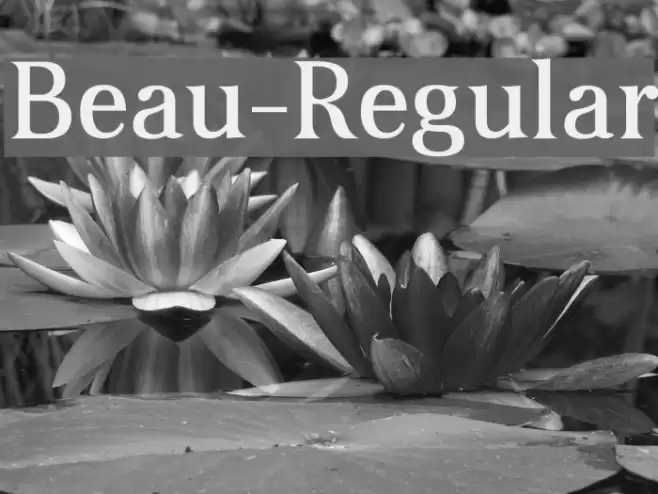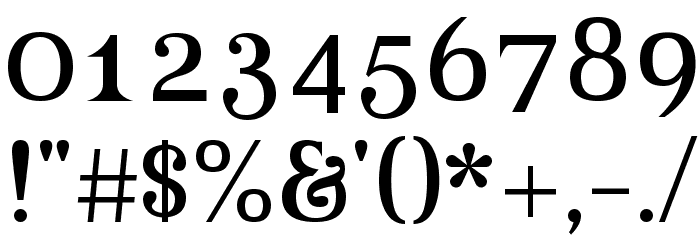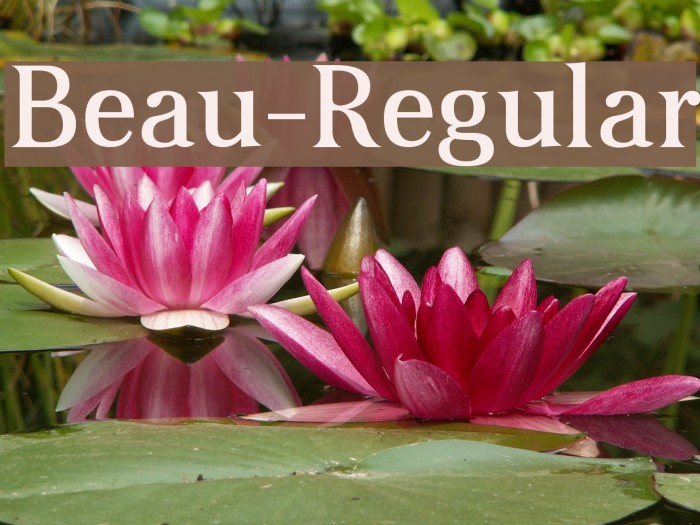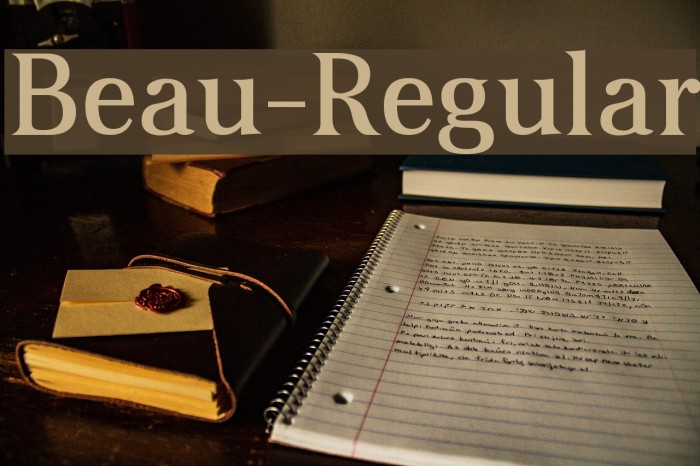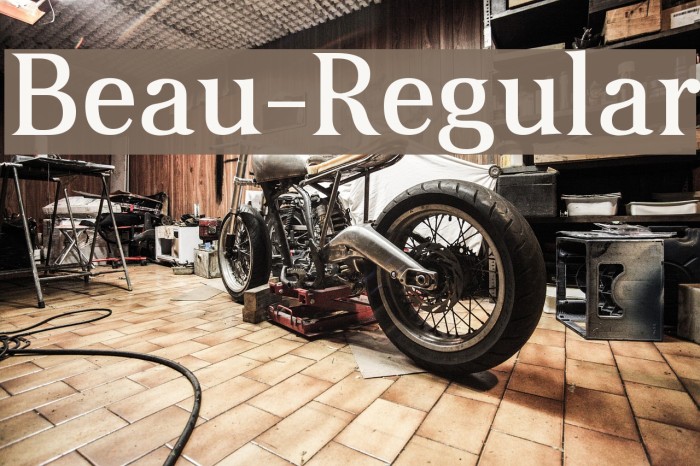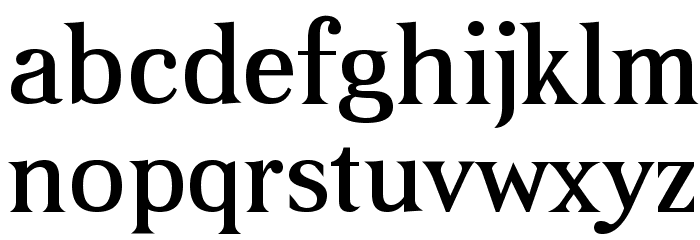
Beau-Regular
This font exhibits a classic serif style with elegant and refined strokes. The characters feature a balanced contrast between thick and thin lines, providing a sophisticated and timeless appearance. The serifs are pronounced yet not overly ornate, contributing to a clean and readable text. Uppercase letters are bold and commanding, while lowercase letters maintain a harmonious flow. The numerals are clear and distinct, ensuring legibility in various contexts. Special characters are well-integrated, maintaining the overall aesthetic of the font.
A classic serif font with elegant strokes and balanced contrast.
- Proposed Projects: Ideal for editorial design, book covers, formal invitations, and branding projects that require a touch of elegance and tradition.
- Category: Serif
- Overall Style: Classic